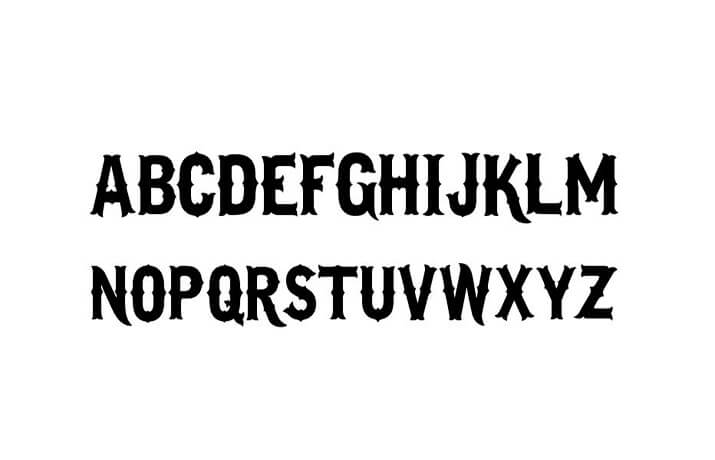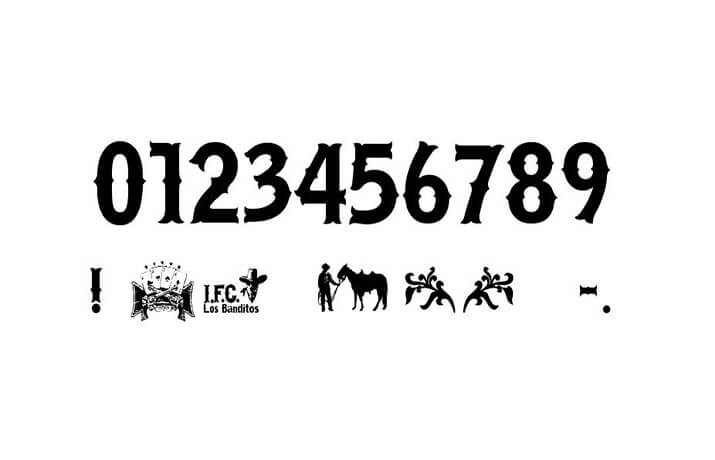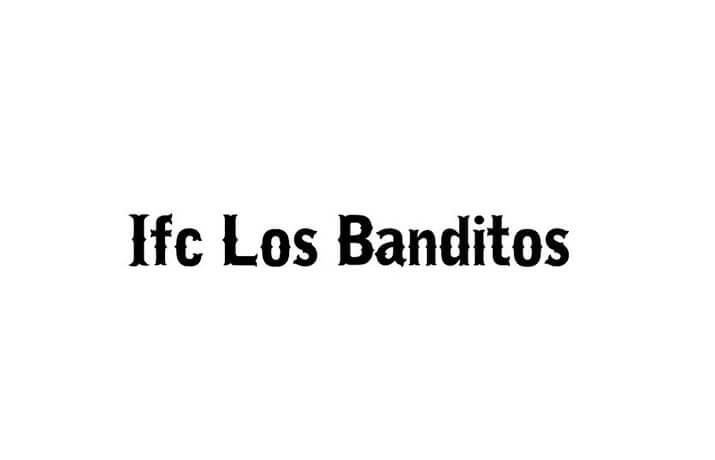
Hello everyone, today we are discussing a new font family called IFC Los Banditos Font. It is a fancy western typeface that has an elegant modern texture.
Anton Krylov is a Russian designer in South Ural. That takes the charge of designing and releasing it primarily.
This typeface contains an elegant vintage texture in which the designer has increased its medium height with thick strokes.
This fancy typeface is ideal for billboards or posters; logotypes; headlines, game titles, create covers, posters, amazing emblems, magazines, brand logos, card printing, product designs, game titles, special event cards, and many more.
IFC Los Banditos Font consists of only a single regular weight that possesses True Type features.